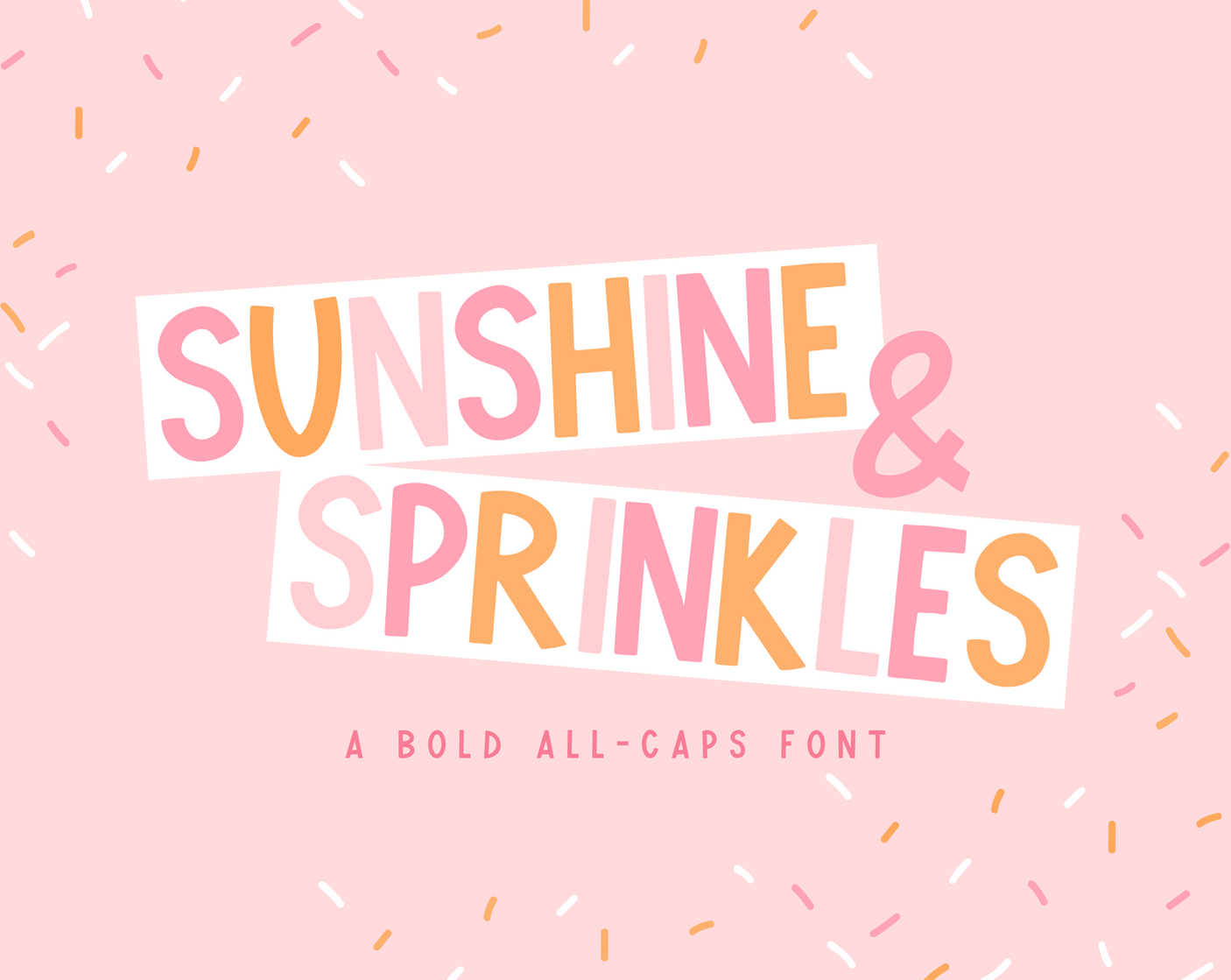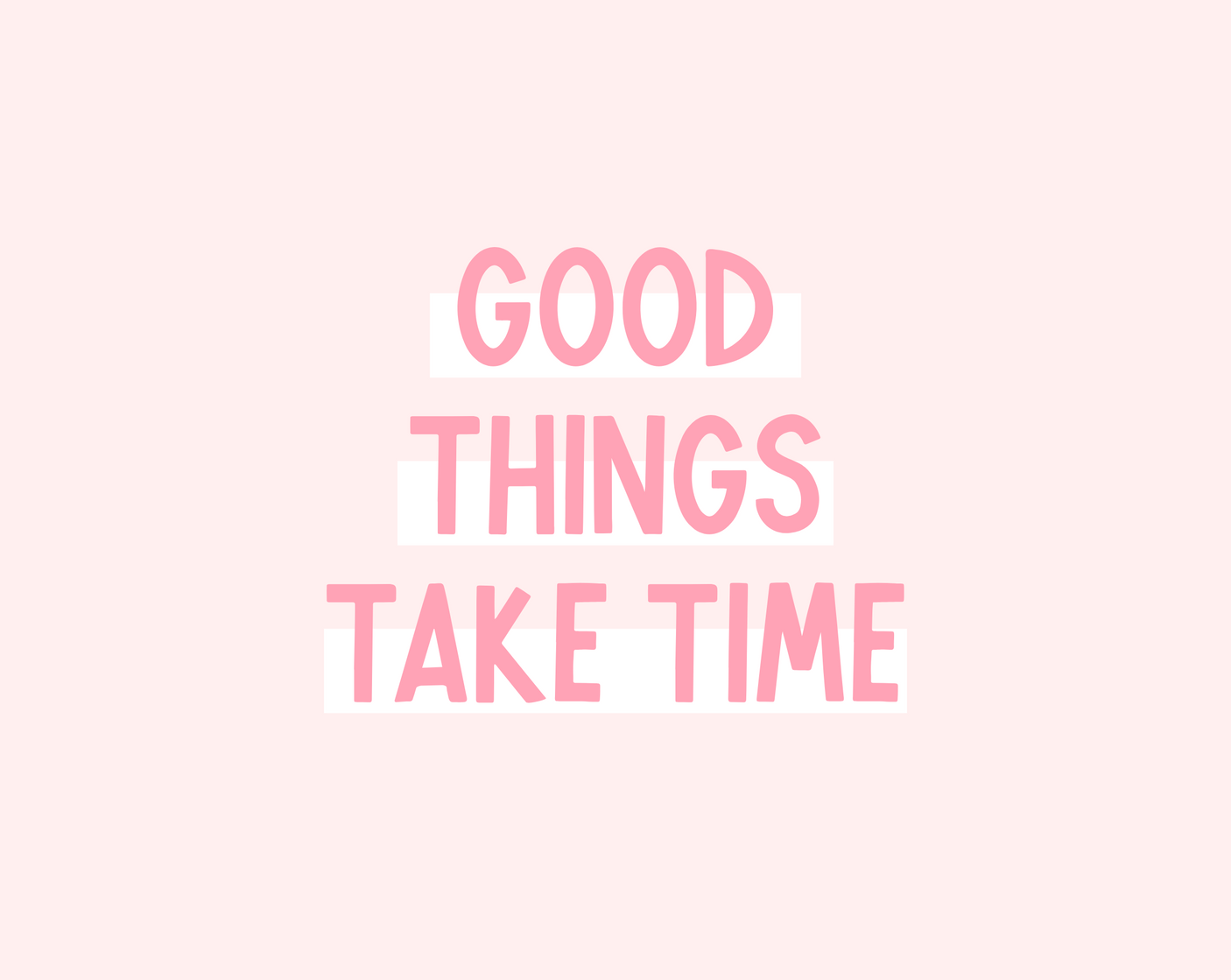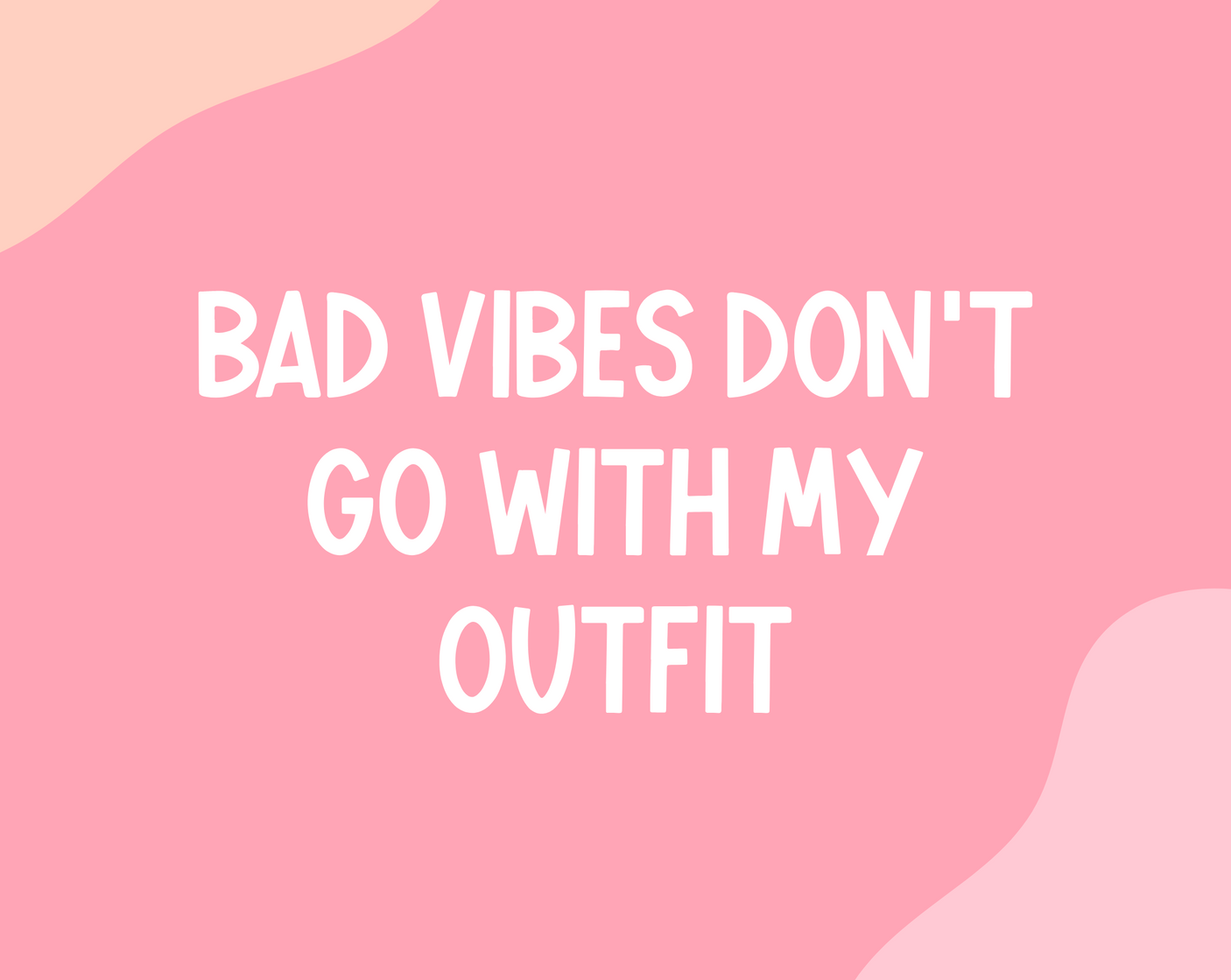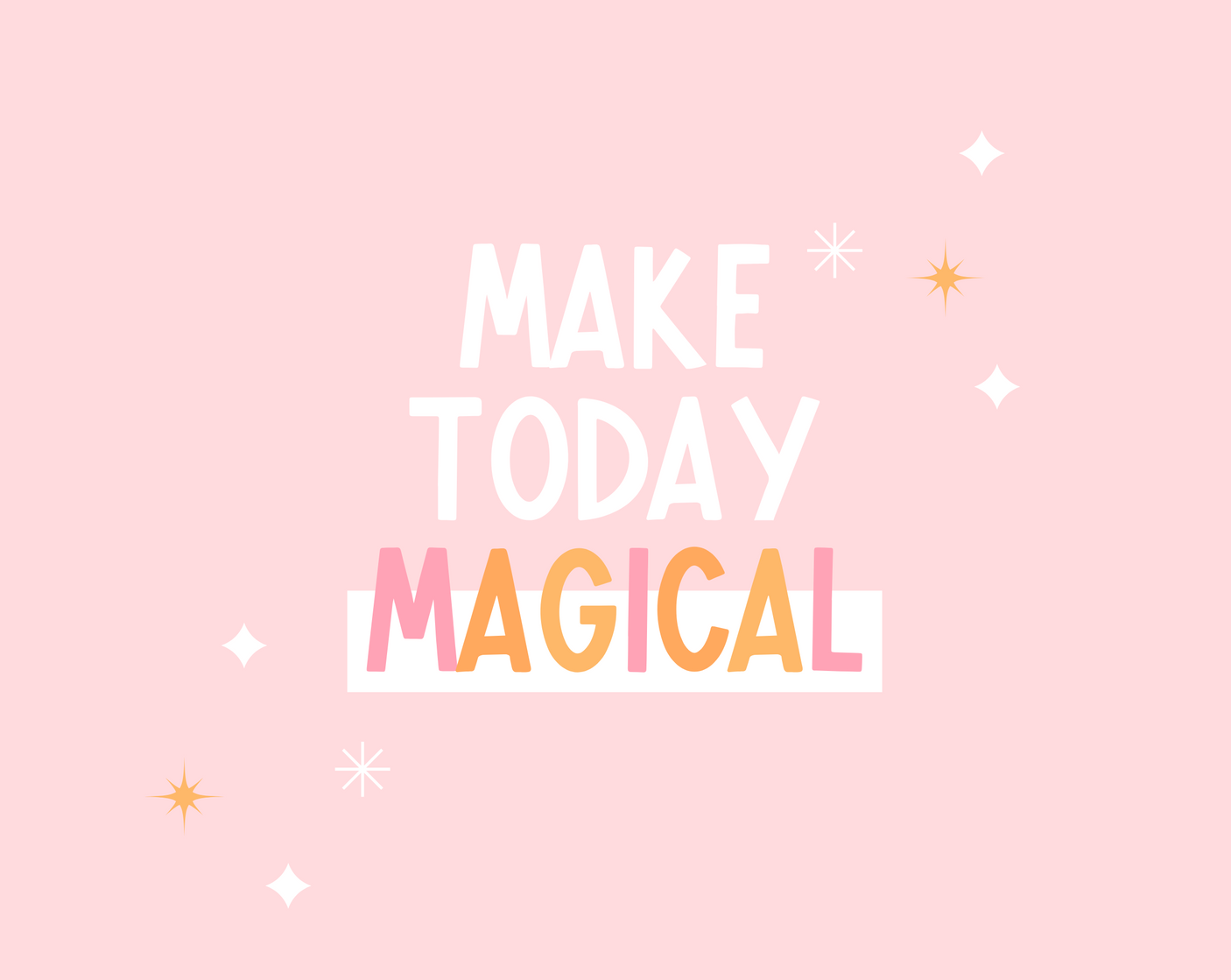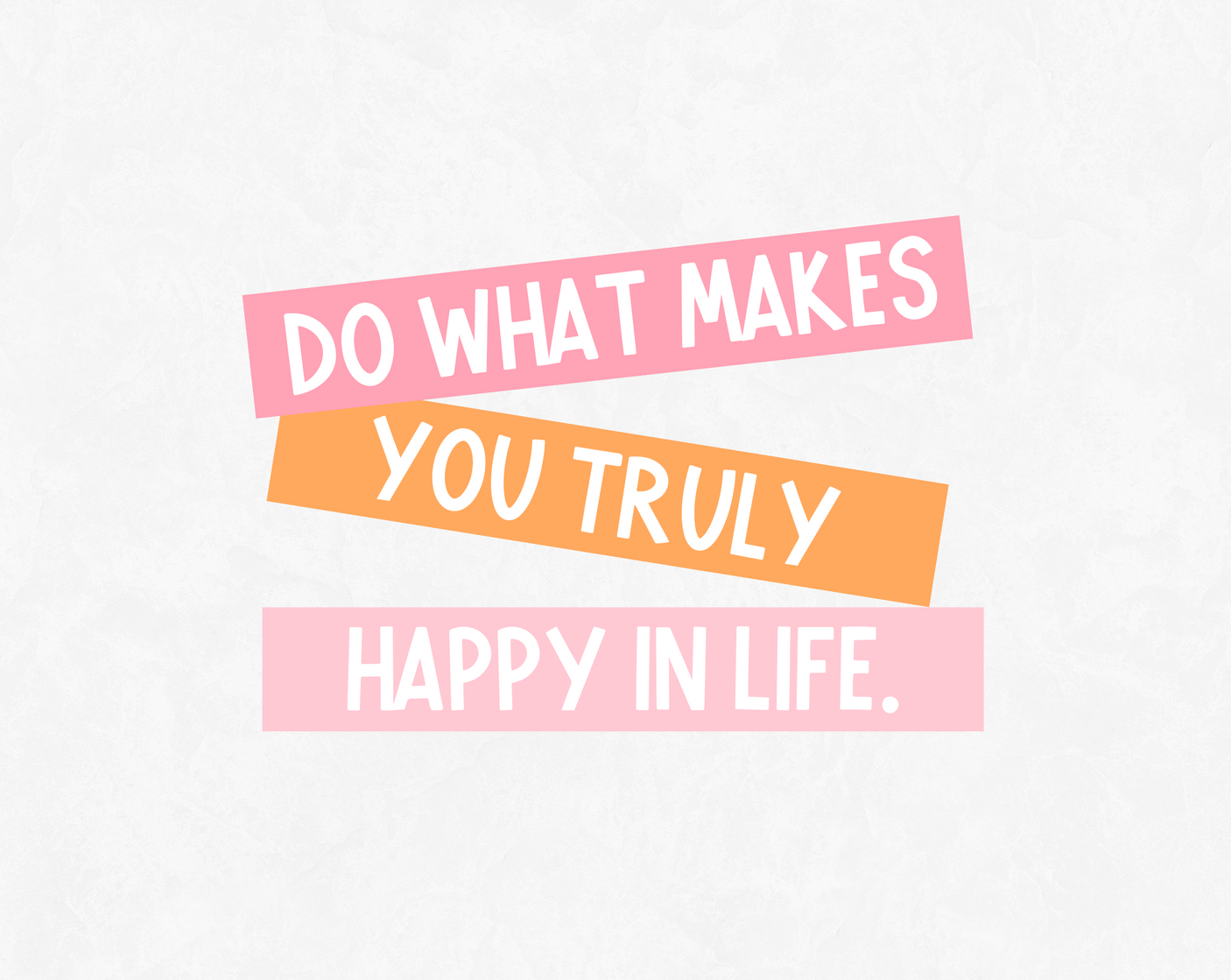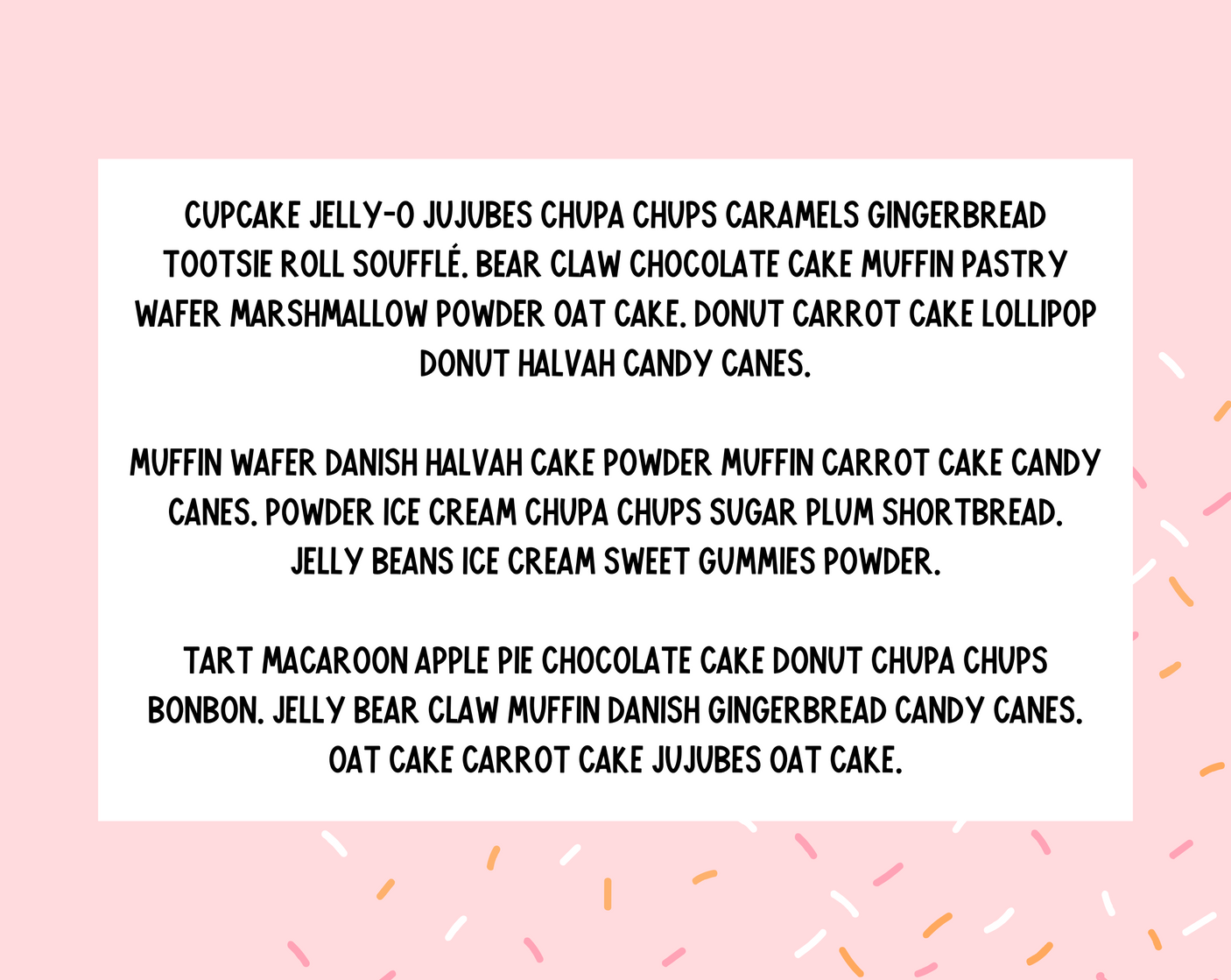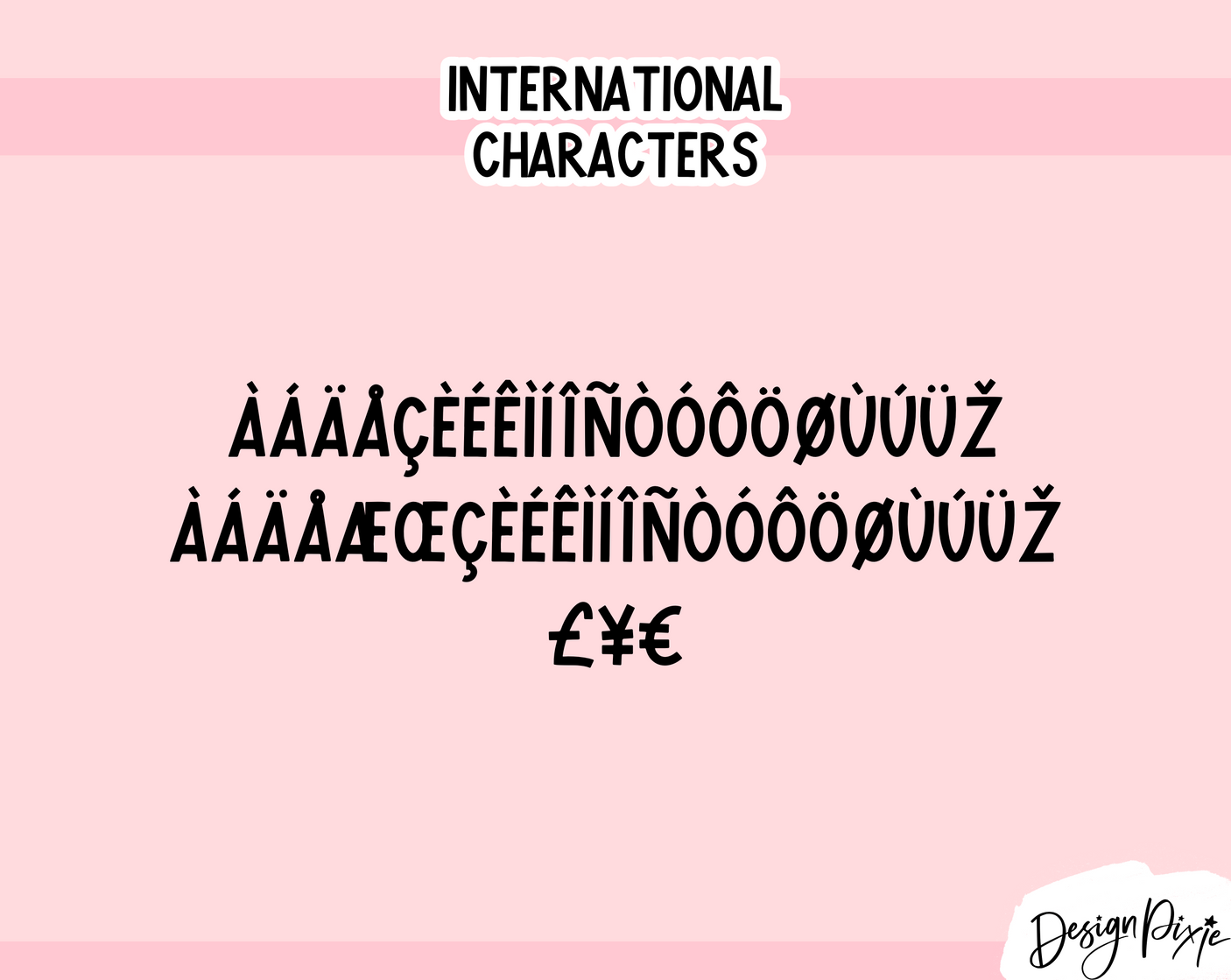
Sunshine And Sprinkes Font
Bold all caps font called Sunshine And Sprinkes. This marker font in all capitals can be used for Cricut, Procreate, Goodnotes, iPad and more. It’s a neat handwritten all-caps font for digital planning, note-taking, logos, crafty work and digital projects.